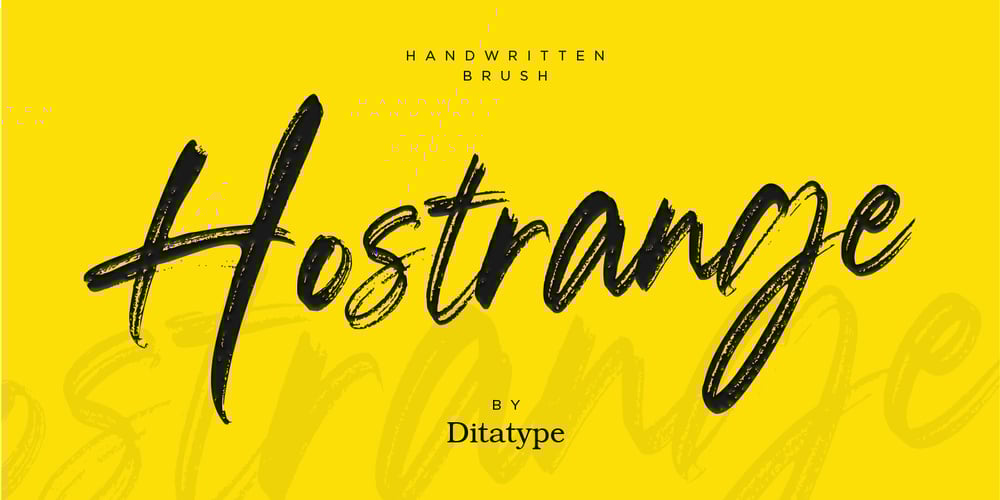
Hostrange Font Family was designed by Donis Miftahudin and published by Ditatype. Hostrange contains 1 styles and family package options. Hostrange is a captivating handwritten font that brings a touch of authenticity and personality to your designs. With its brush-style letterforms and varying brush stroke thicknesses, this typeface captures the essence of handcrafted charm. The special feature of this handwriting lies in its dynamic brush stroke variations, where each letter showcases a range of thicknesses. This adds a sense of organic movement and visual interest to the font, mimicking the natural variations found in hand-drawn brush calligraphy. The result is a font that feels alive and full of character. The brush strokes create a natural and flowing appearance, as if they were crafted by hand with a brush. The varying thicknesses add depth and dimension, enhancing the font’s authenticity and handcrafted feel. The letterforms of Hostrange strike a balance between legibility and artistic expression. While each letter maintains its distinctive shape, the varying brush stroke thicknesses bring a sense of uniqueness to each character.Features: Alternates Ligatures Multilingual Supports PUA Encoded Numerals and Punctuations Hostrange fits in headlines, logos, posters, invitations, packaging, branding materials, or any project that calls for a handwritten aesthetic. Find out more ways to use this font by taking a look at the font preview.Thanks for purchasing our fonts. Hopefully, you have a great time using our font. Feel free to contact us anytime for further information or when you have trouble with the font. Thanks a lot and happy designing.